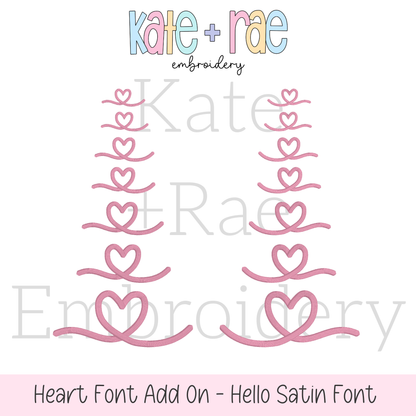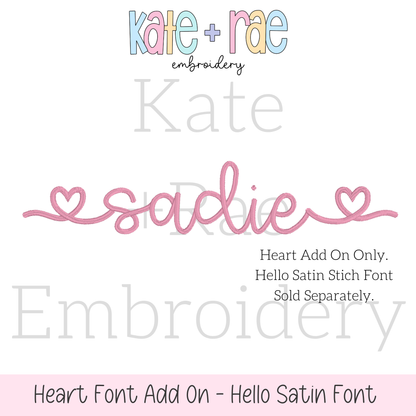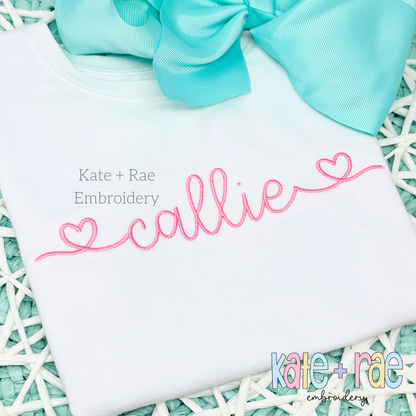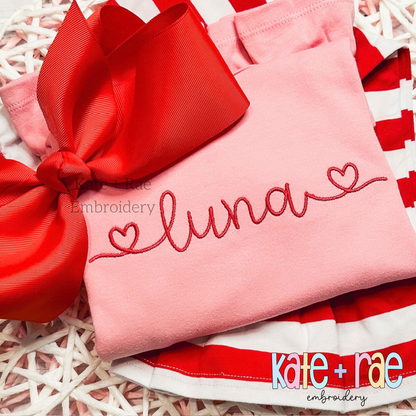
Heart Font Add On Embroidery Design
Add a sweet finishing touch to your lettering with this heart font add on! Designed to pair with our Hello Satin Stitch Font, it's darling on Valentine's names and gifts.